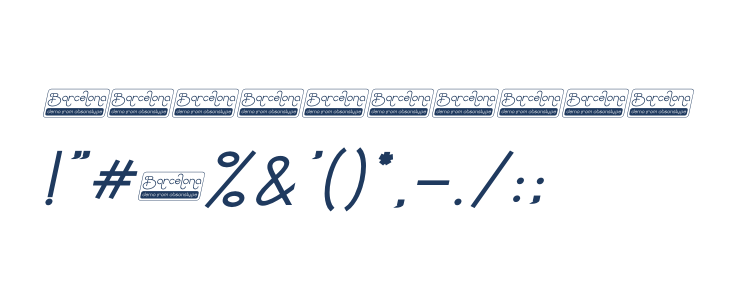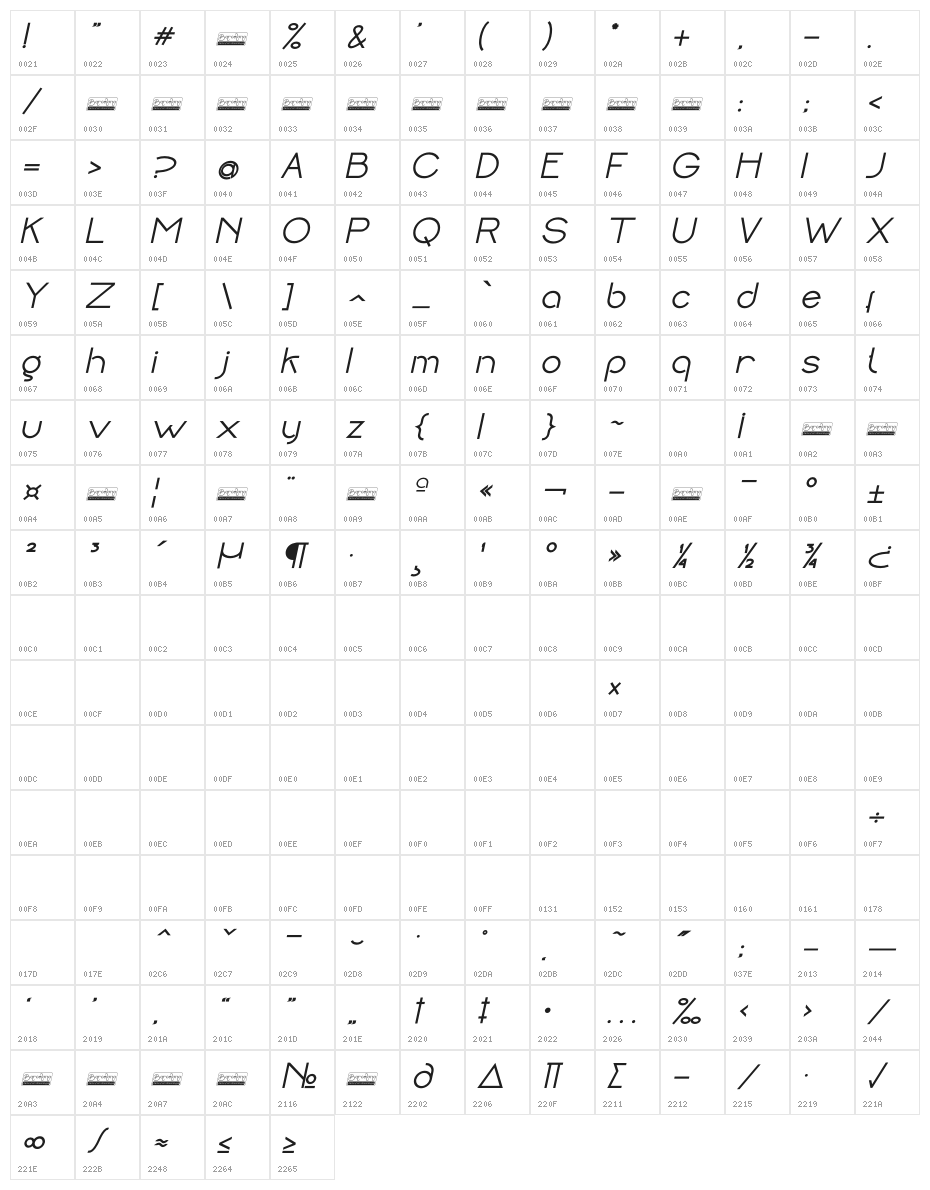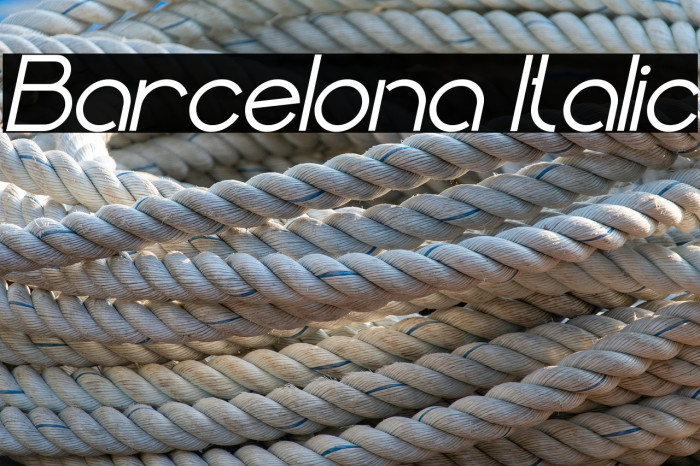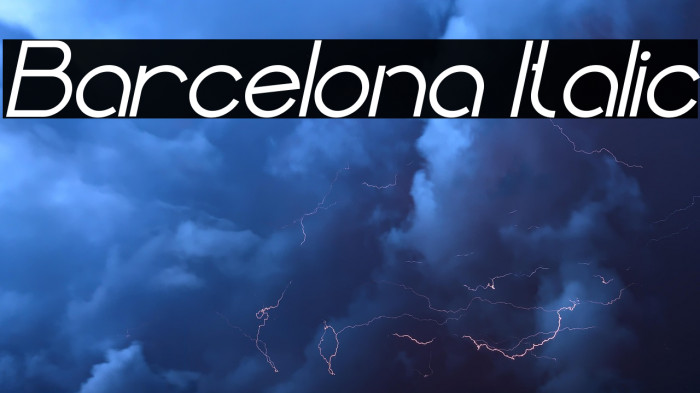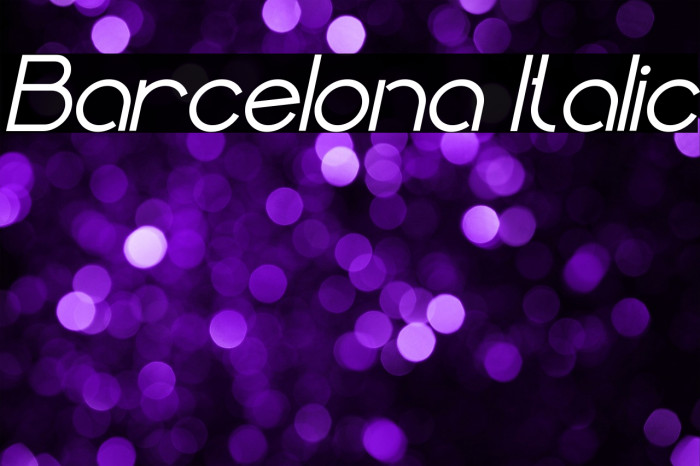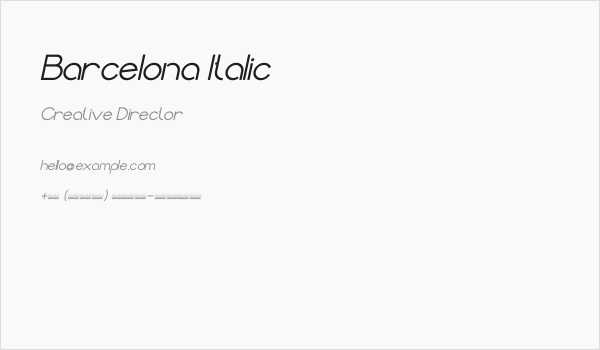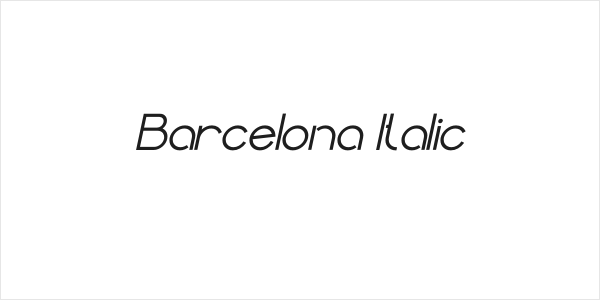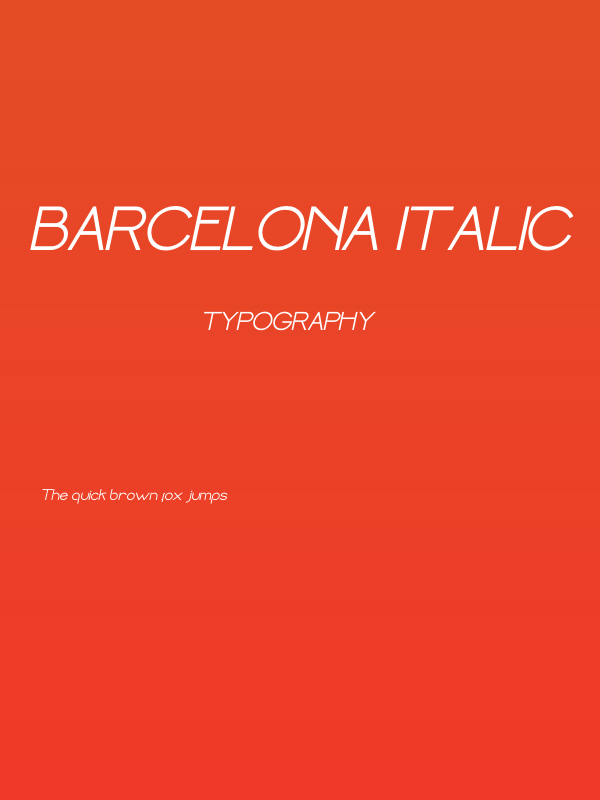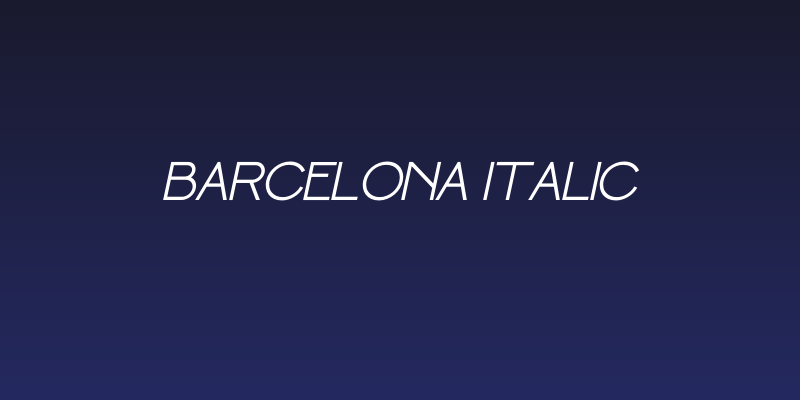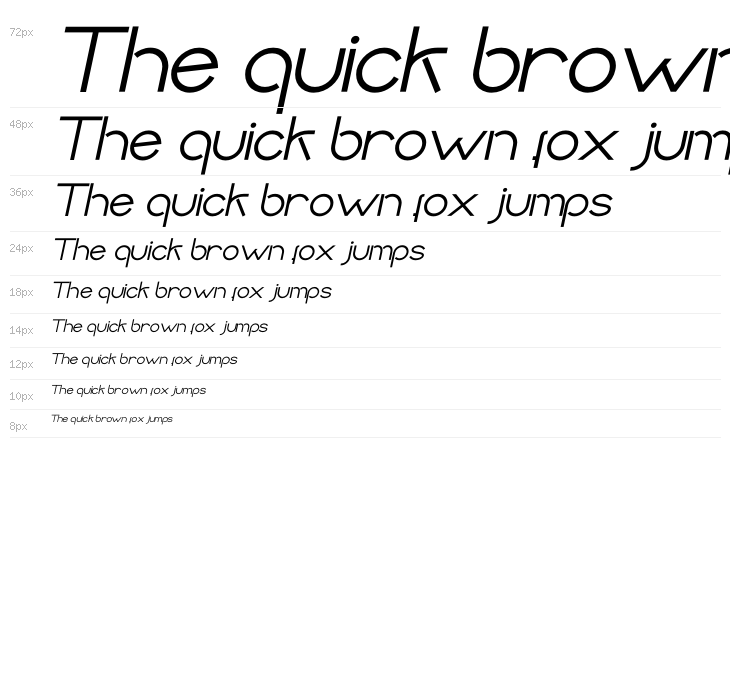
Barcelona Italic Font
Barcelona Italic Description
This font features a sleek, italicized style with a modern and elegant appearance. The characters are slightly slanted, giving a sense of motion and fluidity. The strokes are consistent and smooth, with a medium contrast that adds to its readability. The uppercase and lowercase letters maintain a uniform height, contributing to a harmonious look. The numerals and special characters are designed to match the overall aesthetic, making it versatile for various design needs.